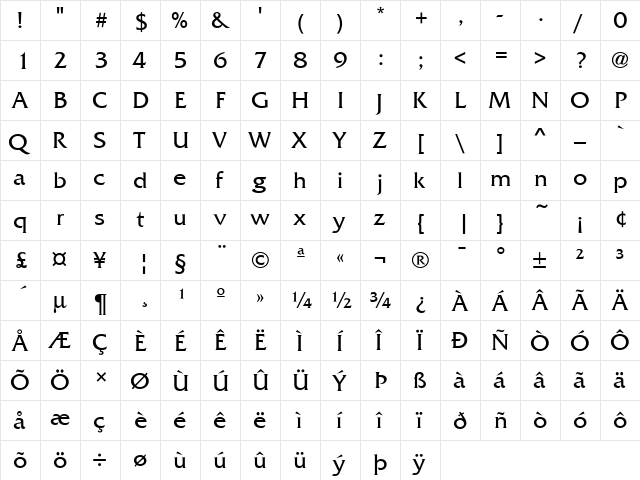
Friz Quadrata ITC T Regular
Design Context for Friz Quadrata ITC T Typeface
Friz Quadrata ITC T offers clean, dependable letterforms without strong stylistic allegiance, making it a practical choice for designers who need flexibility.